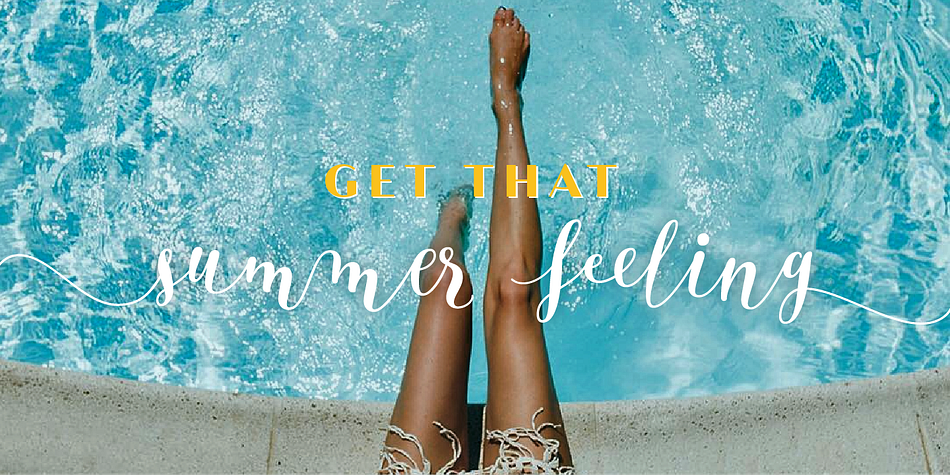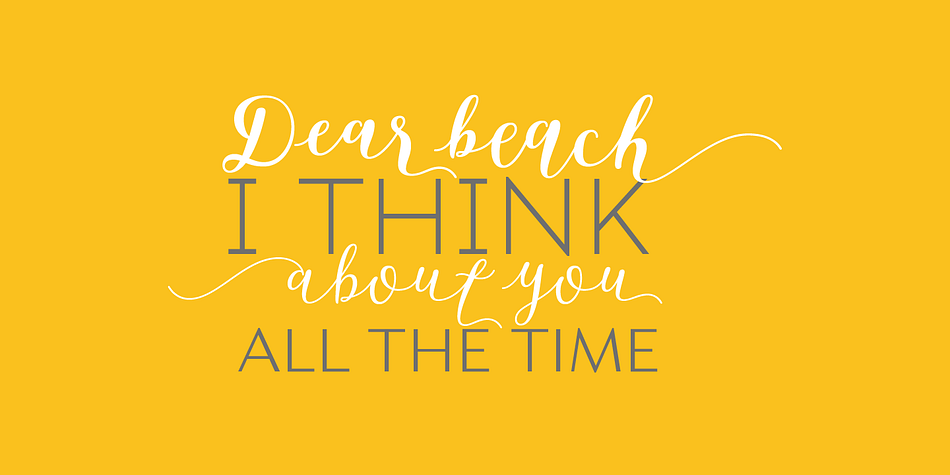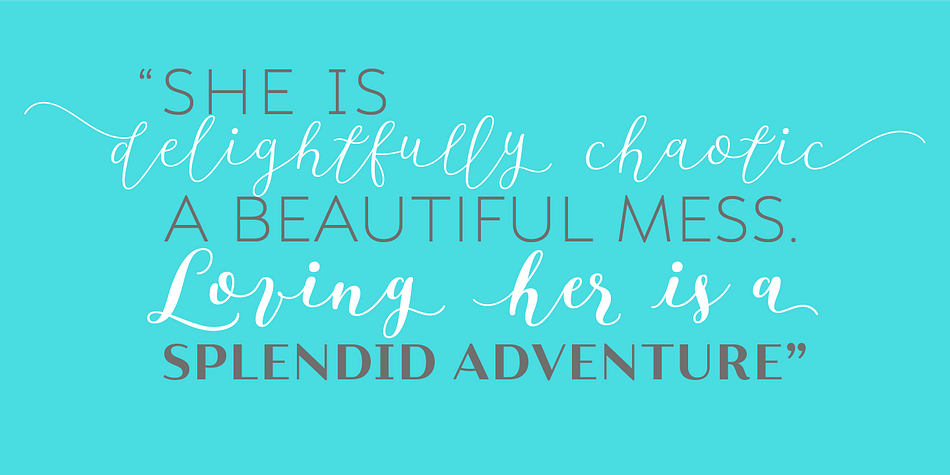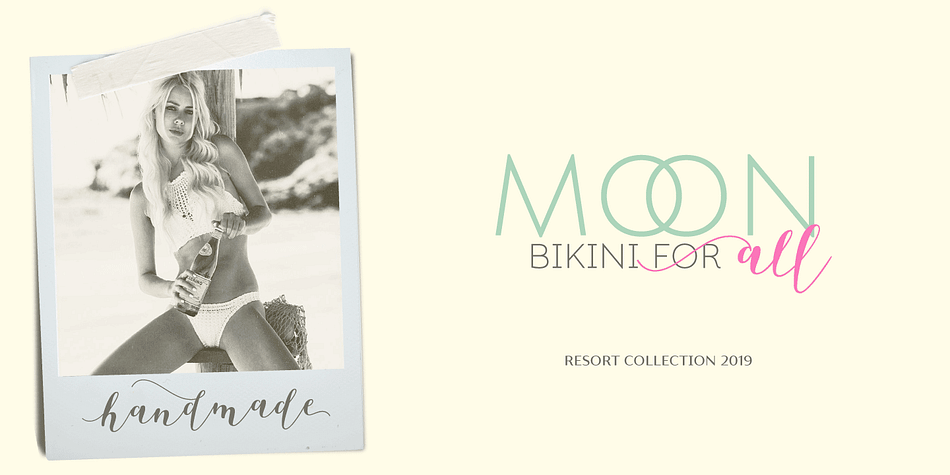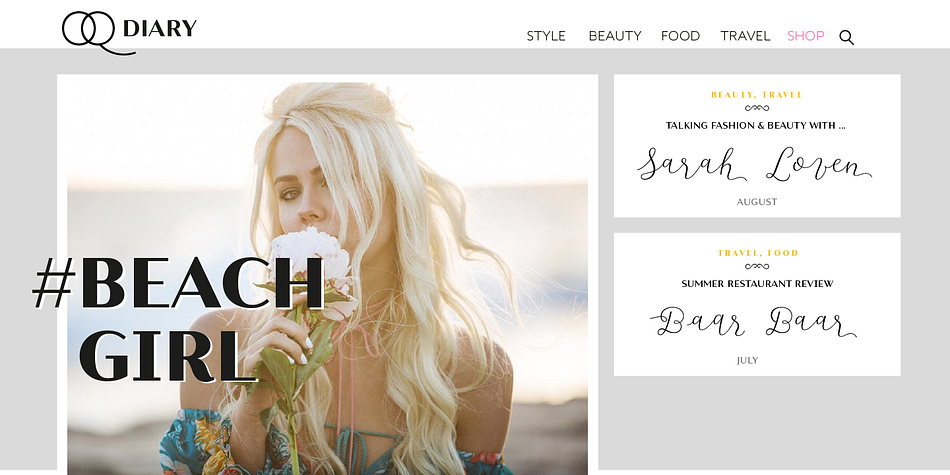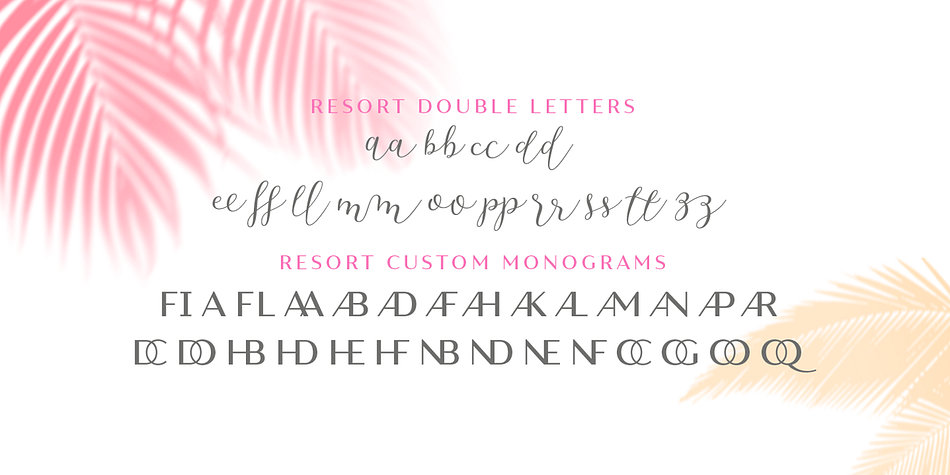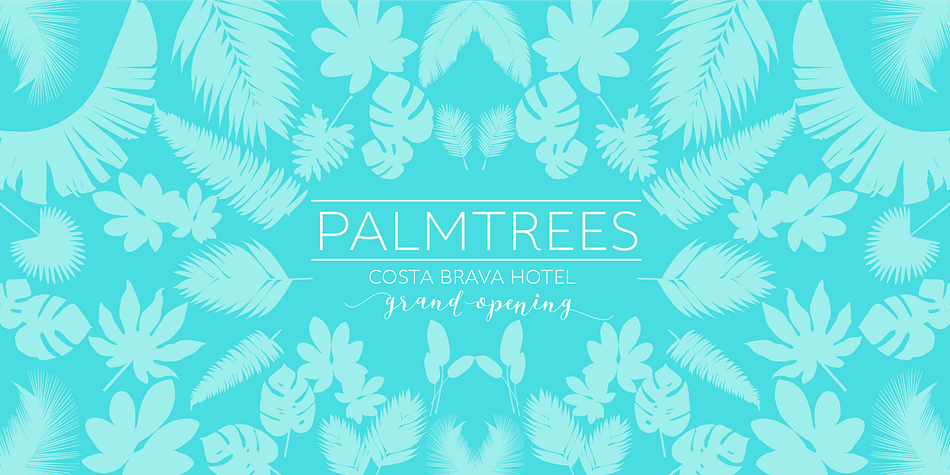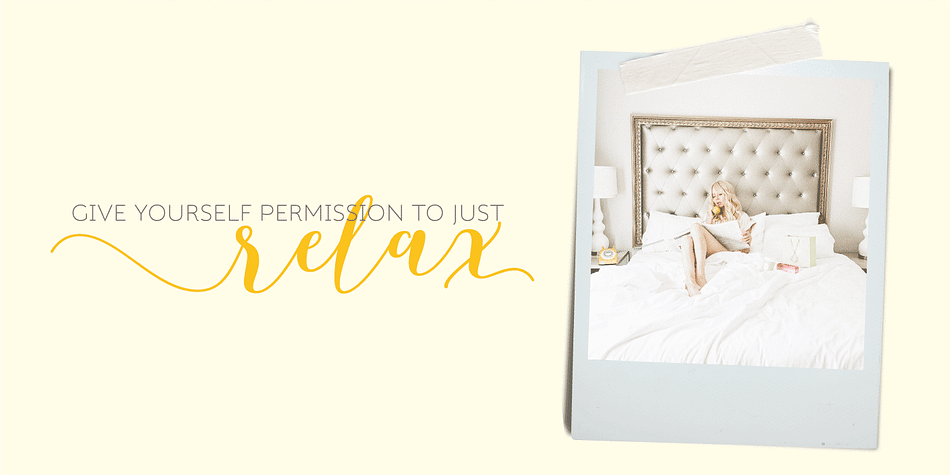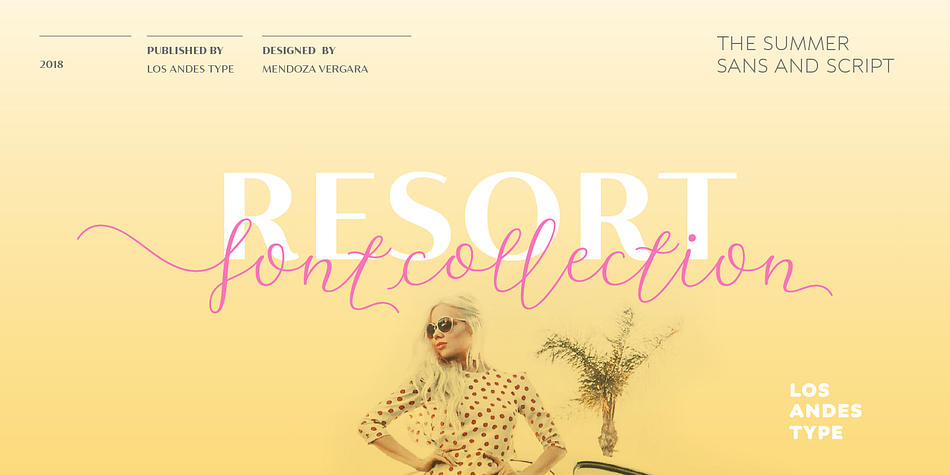
Designed by Mendoza Vergara, Resort is a multiple classification font family. This typeface has twelve styles and was published by Los Andes Type.
This font collection includes a contemporary casual Script typeface and a sophisticated all caps Sans that features high contrast between thick and thin strokes. When used together, these fonts offer high versatility—perfect for magazines, blogs, mockups, use with social networking sites, logos and headlines as well as greeting cards, invitations, book covers, posters, and web and on-screen use.
Resort is a font collection consisting of 12 styles and 3 variants: Script, Sans and Ornaments. The font set is intended to provide users with a wide range of choices for any design project.
The collection comes with a relaxing Script of 5 weights and a classic 6-weight Sans, and includes lively floral ornaments.
Resort evokes the feeling of relaxing barefoot walks along the beach while enjoying the sunset and a refreshing cocktail.